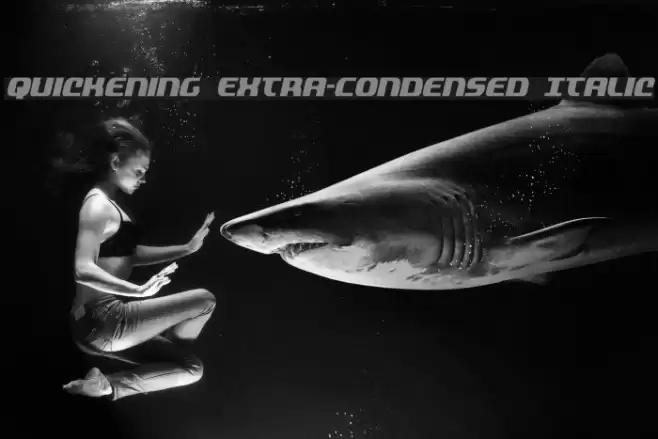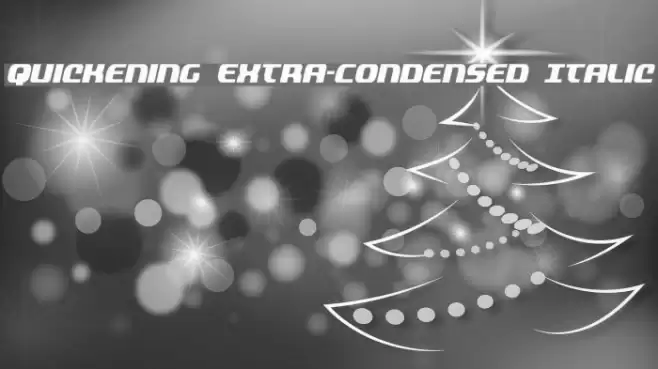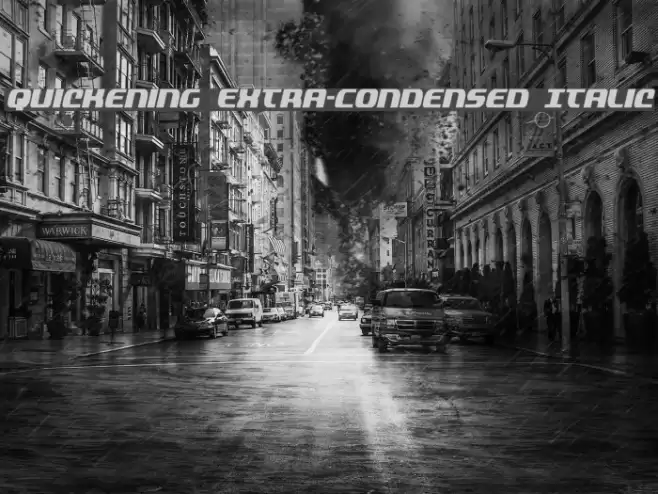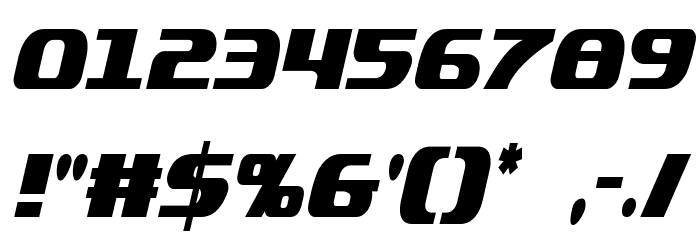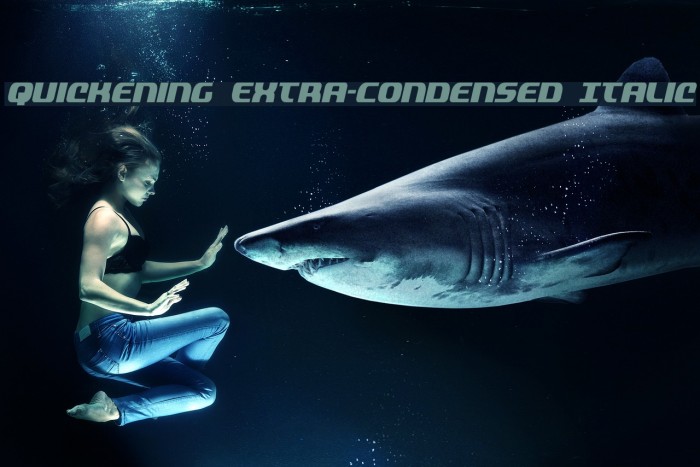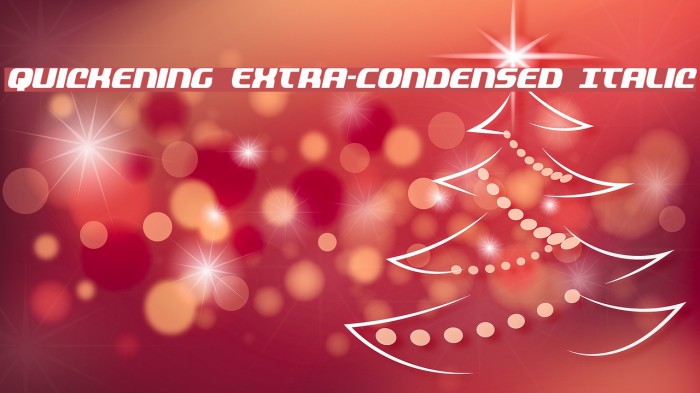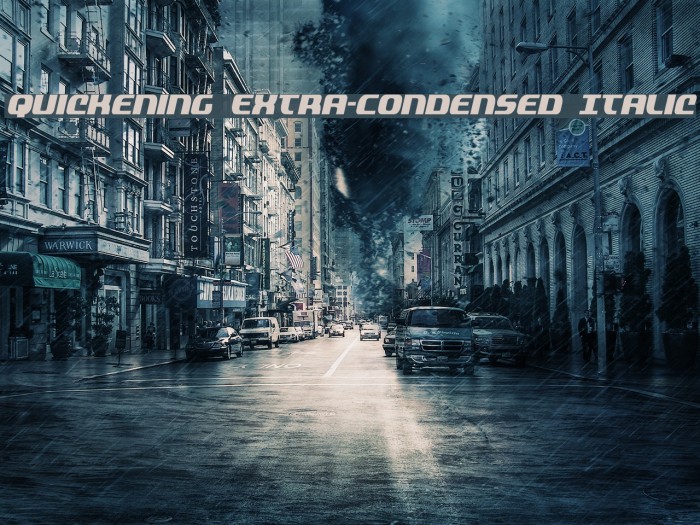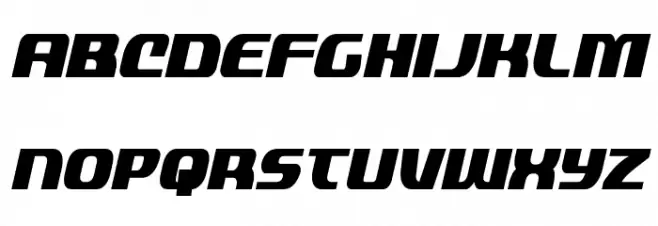
Quickening Extra-Condensed Italic Font
Quickening Extra-Condensed Italic Description
This font features a dynamic and energetic style with a distinct italic slant, giving it a sense of motion and speed. The characters are extra-condensed, which makes them ideal for fitting more text into a limited space without sacrificing readability. The bold weight of the letters enhances their presence, making them stand out in any design. The strokes are consistent in thickness, providing a uniform appearance across all characters. The overall style is modern and sleek, suitable for contemporary designs that require a touch of sophistication and flair.
A bold, extra-condensed italic font with a modern and dynamic style from Uncategorized fonts.
- Proposed Projects: Ideal for sports branding, dynamic posters, modern advertisements, and any project needing a bold statement.
- Character Spacing: Tight